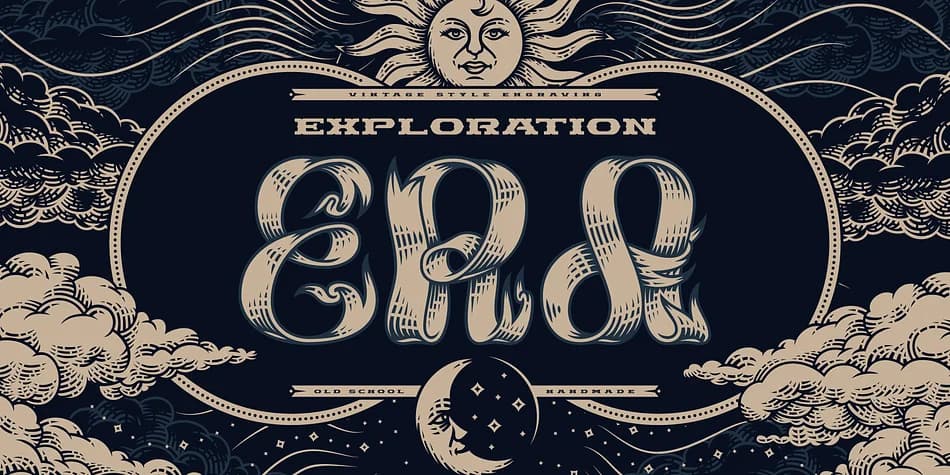
The letterforms here have a distinctive ribbon-like structure with engraving-style shading that creates real depth and visual movement throughout each character. Exploration Era, designed by Gleb Guralnyk, brings that hand-drawn, vintage aesthetic to digital projects with remarkable versatility and warmth.
What makes this typeface genuinely useful is the three-layered file structure (Regular, Outside, and Inside), which lets you create sophisticated color combinations and layering effects without needing to hunt for multiple fonts or workarounds. You get actual flexibility for the kind of design work where texture and visual depth genuinely matter: vintage product labels for craft bottles, ornate wedding invitation suites, decorative hardcover book covers, or that premium, handcrafted feel on boutique skincare and cosmetics packaging. The ribbon detail and engraving shading work especially well when you're layering colors or creating more dimensional visual effects.
Multilingual support comes built in, so you can extend your designs across different language markets without limitation. Plus, you get vector templates with pre-made illustrations in both EPS and fully editable AI formats, ready to customize and modify for your own projects. This font works best for designers and small business owners who need that unmistakably handcrafted, engraved quality, and you can grab it on Creative Fabrica.
Exploration Era Font is a decorative font that shines as a display or heading face. Pair it with a clean sans-serif or serif font for body text — the contrast creates a clear hierarchy while the two styles stay balanced and easy to read.